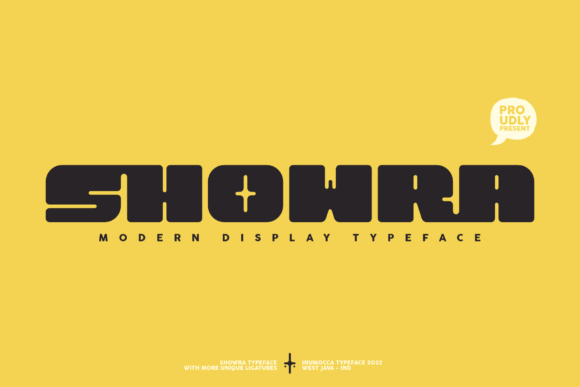
**Introducing Showra Font: Emboldening Your Brand with Confidence**
Unleash the captivating charm of Showra, a display font that exudes boldness and power. This modern masterpiece is meticulously crafted to elevate your design endeavors, leaving an unforgettable mark on your audience.
Imagine the impact of your movie titles soaring high with Showra's dignified presence, or the allure of your magazine covers captivating every reader. With its delightfully chubby characters, Showra transforms ordinary designs into extraordinary works of art.
But Showra's allure doesn't stop there! It's the perfect muse for logos, posters, and quotes, adding a touch of sophistication to every project. And with its PUA encoding, you effortlessly unlock a treasure cove of glyphs and swashes, empowering you to unleash your creativity without bounds.
More than just a font, Showra is an emblem of confidence and modernity. It's the spark that ignites your designs, propelling them to new heights of brilliance. Whether you're a seasoned designer or just starting your creative journey, Showra is your trusted companion, guiding you towards extraordinary results.